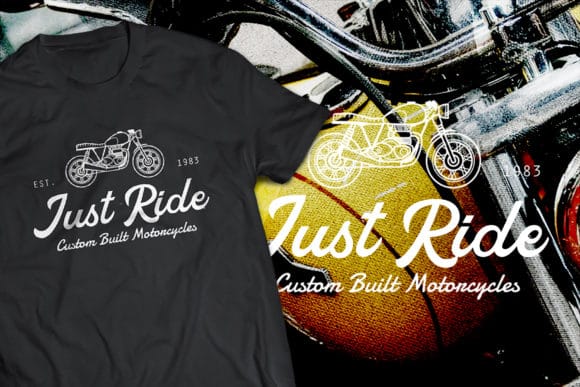
Hey Monday is a stylish and modern handwritten font. It has a friendly and elegant feel and will be the best option to create gorgeous wedding invitations, beautiful stationary art, eye-catching social media posts, and cute greeting cards.
- Designer: peterdraw